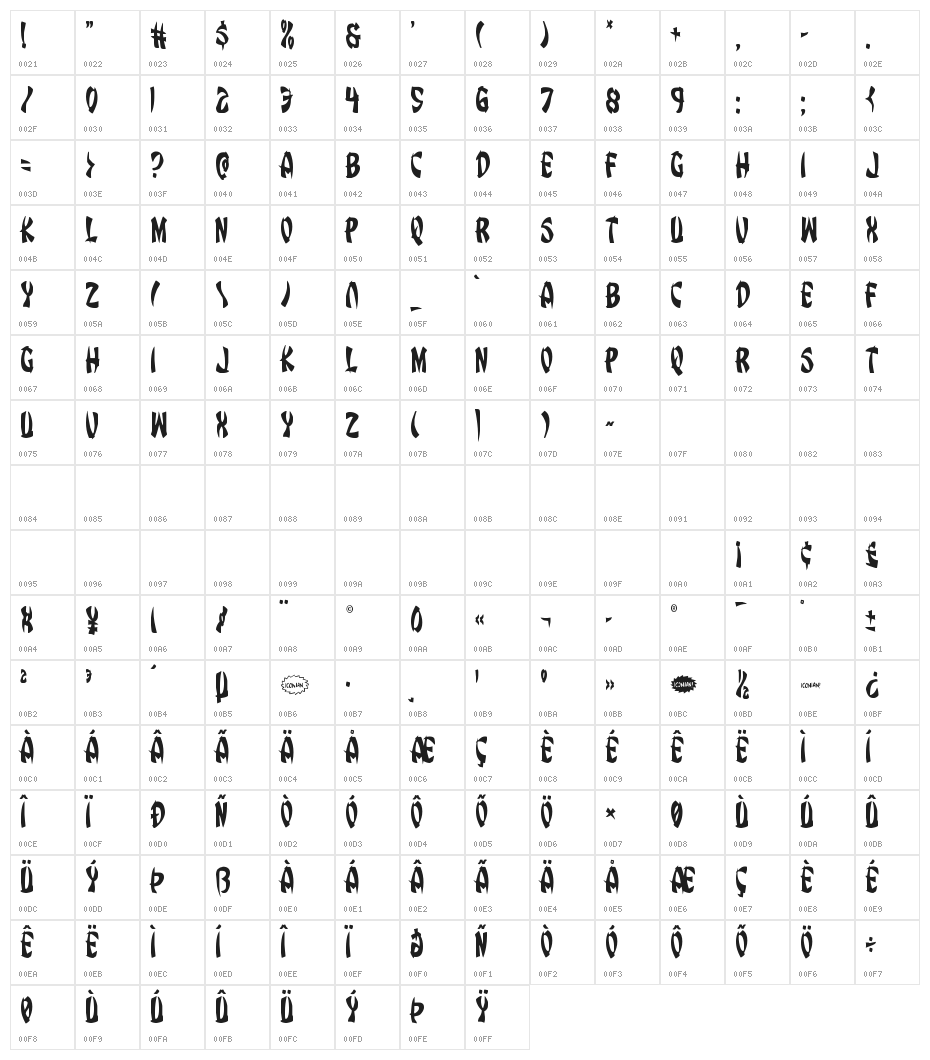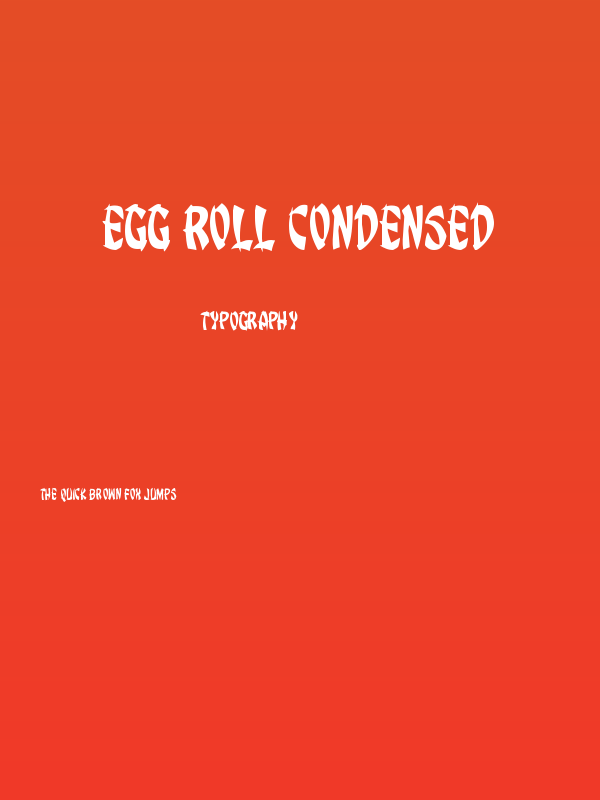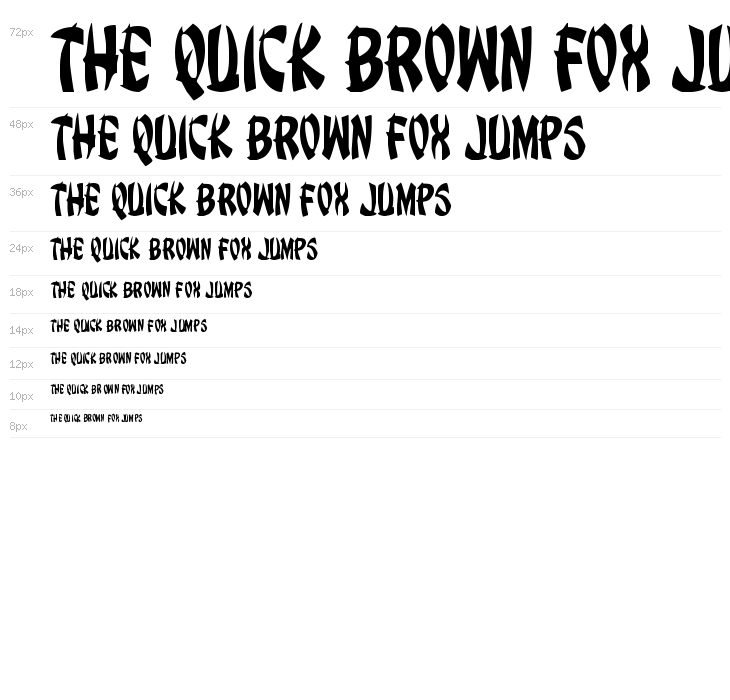
Egg Roll Condensed Font
Egg Roll Condensed Description
This font exhibits a bold and dynamic style with a condensed form, characterized by sharp, angular strokes and a playful, energetic appearance. The letters have a unique, almost hand-drawn quality, with exaggerated curves and points that give it a distinctive flair. The uppercase and lowercase letters maintain a consistent style, while the numbers and special characters complement the overall design. This font's boldness and condensed nature make it stand out, perfect for grabbing attention.